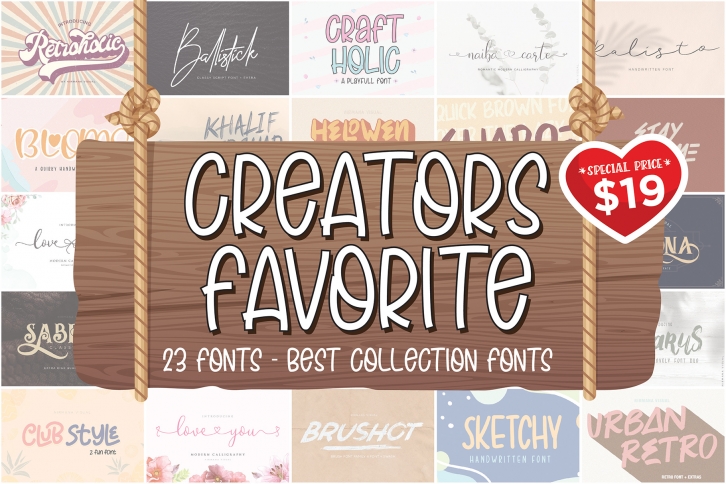
The Creators Favorite Font Bundle Download
The Creators Favorite Bundle is a trendy and unique font with an authentic style. It was designed by Nirmana Visual and it's a great choice for creative people who need such a font. It was released on March 2, 2020 and the file size is 12.10 MB. The Creators Favorite Bundle will add an organic vibe to any design idea!